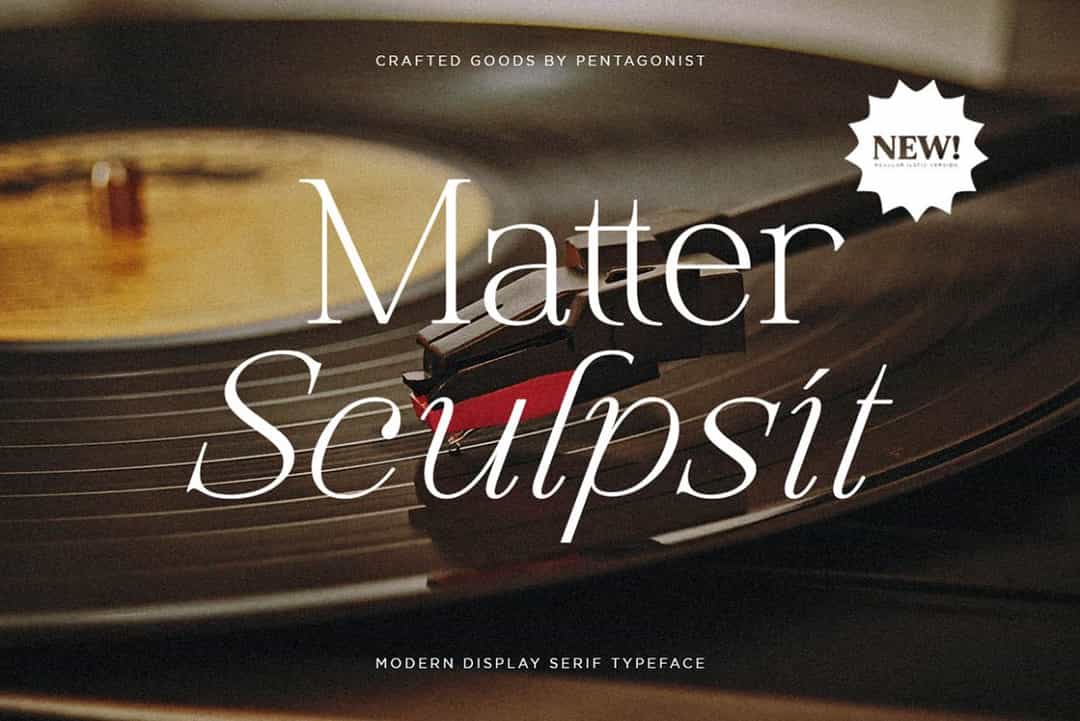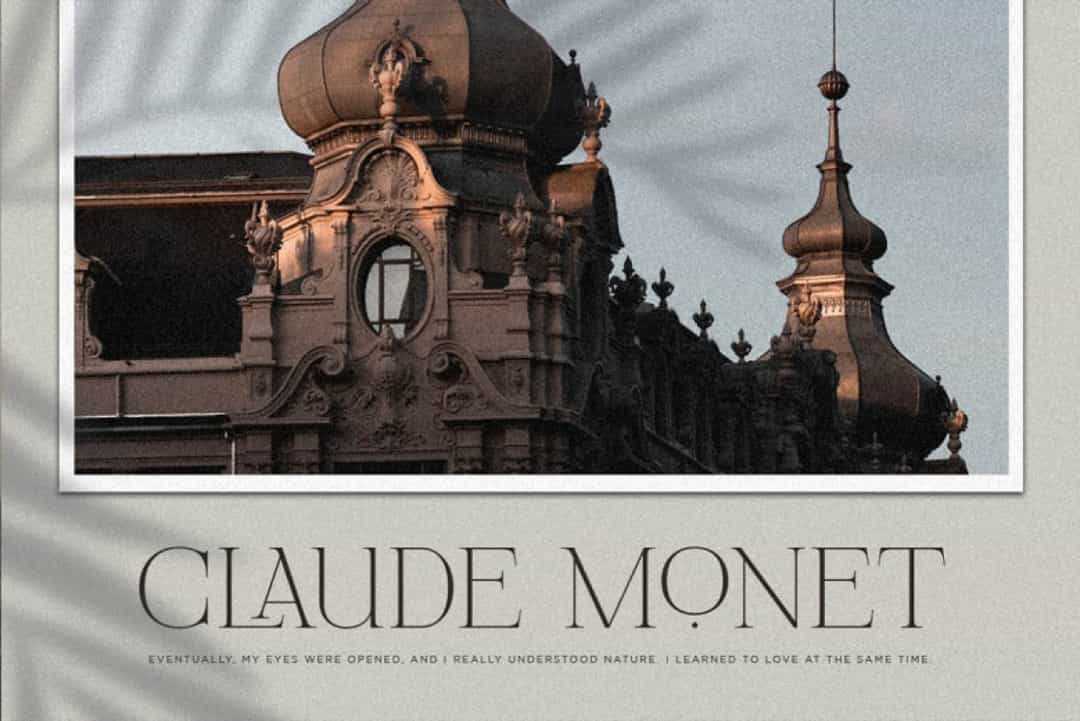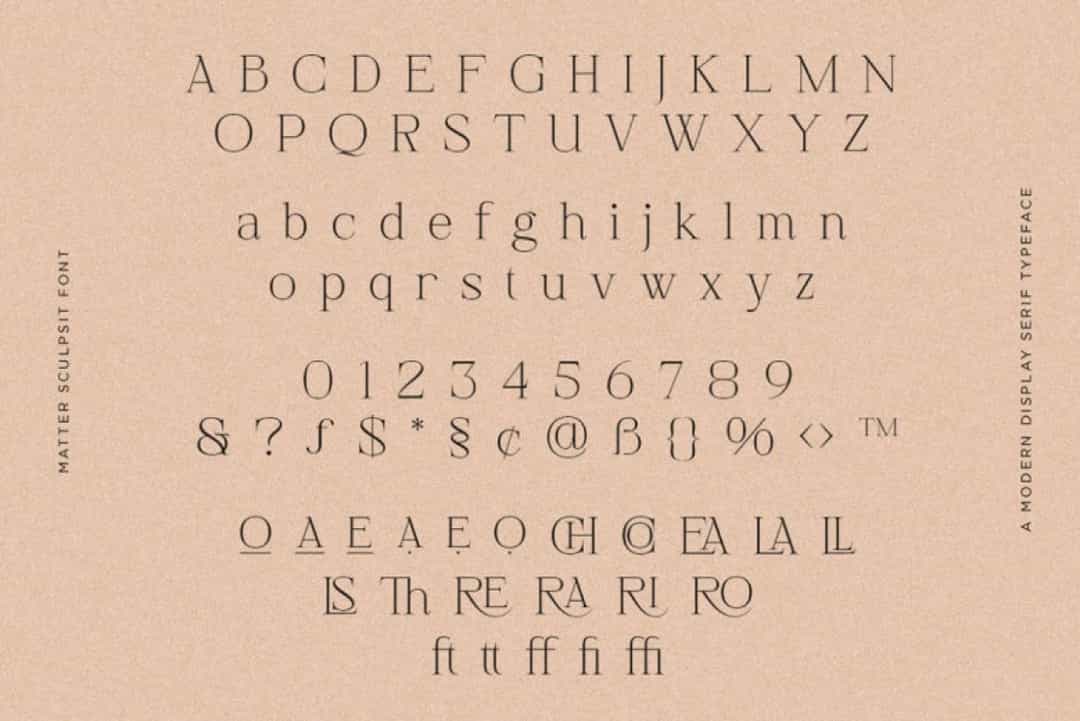
Matter Sculpsit Font is a charming vintage font. Perfect for adding that unique retro charm to every design concept you have in mind! PUA encoded, giving access to all characters and ligatures easily!